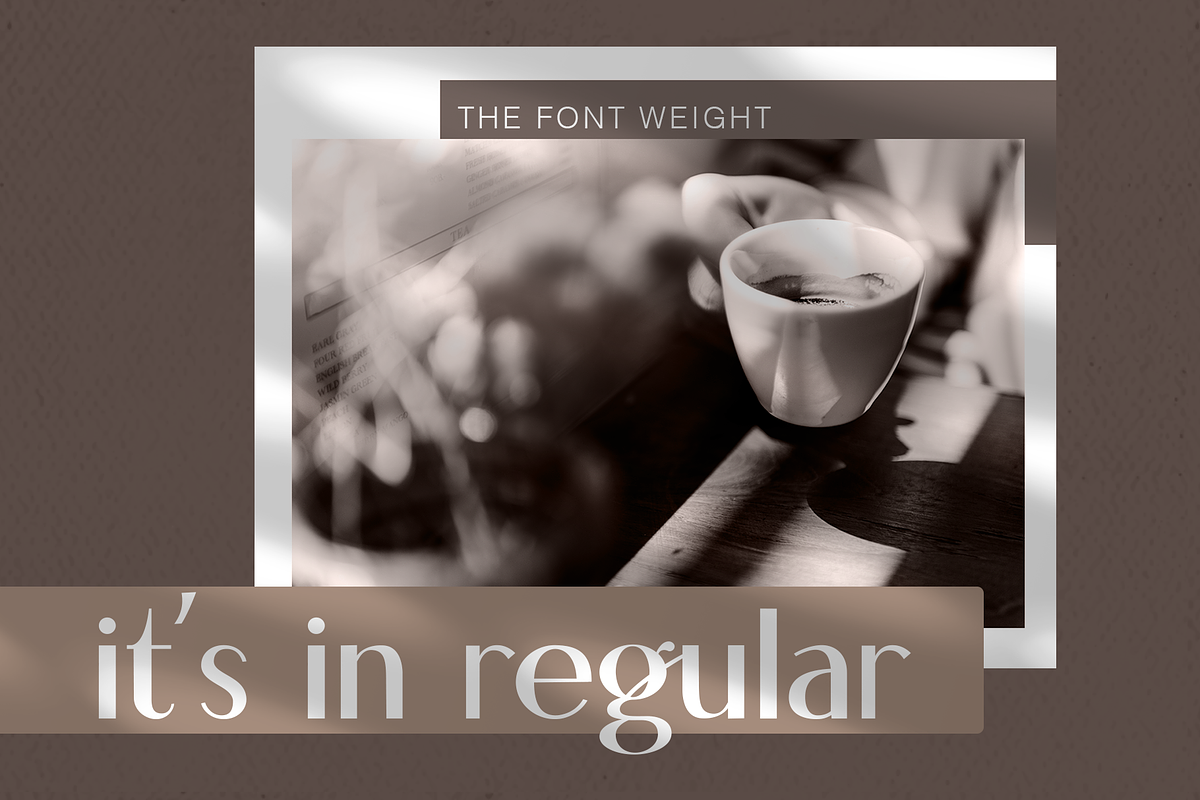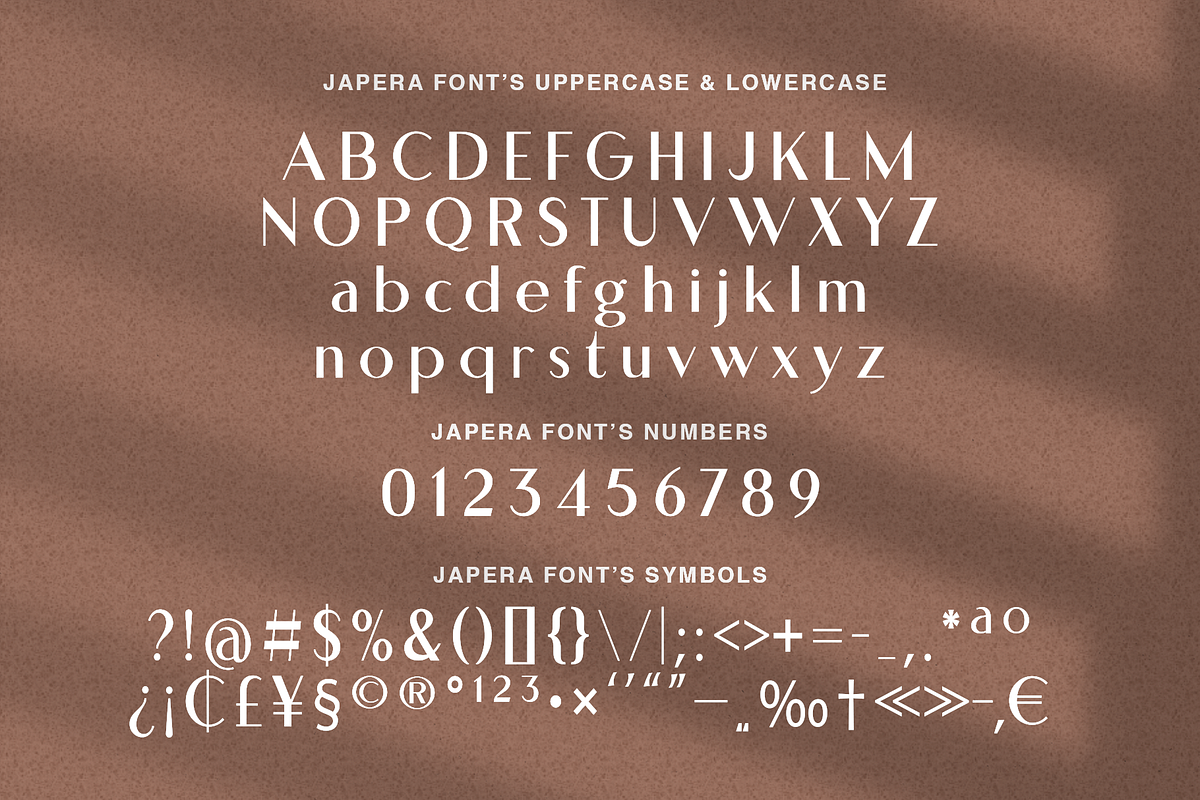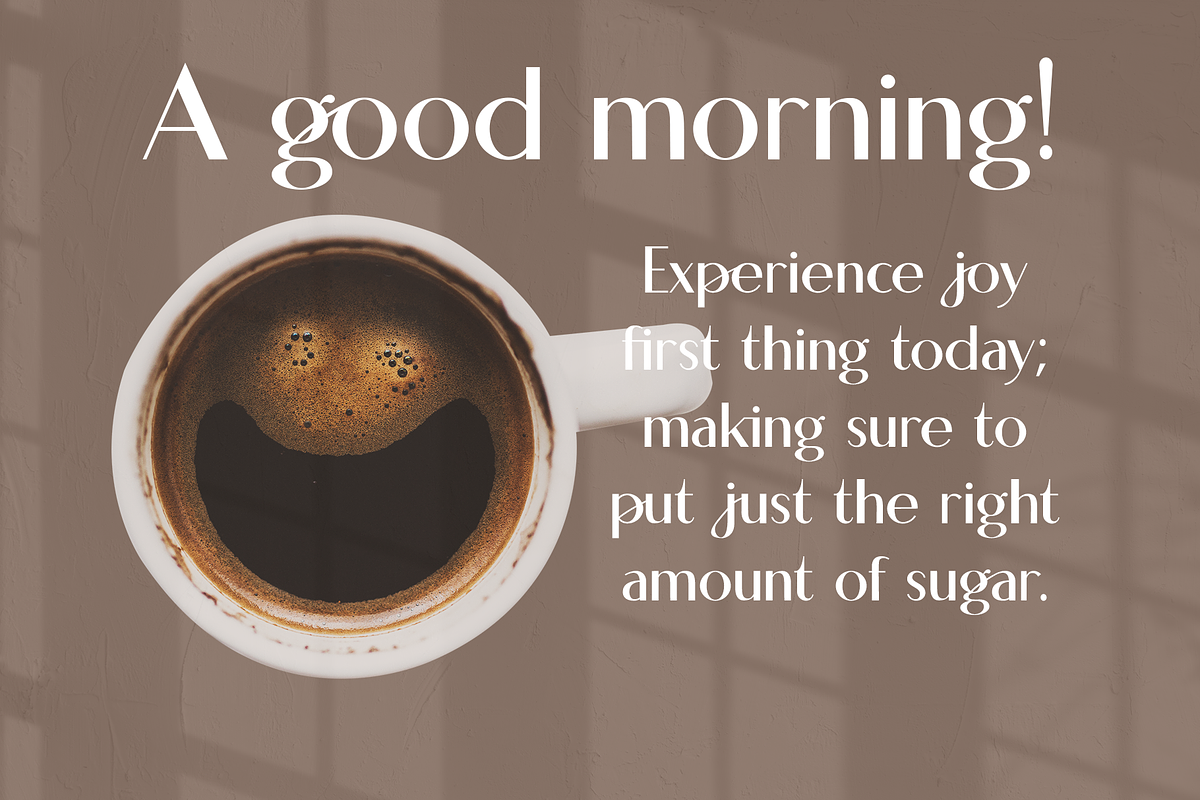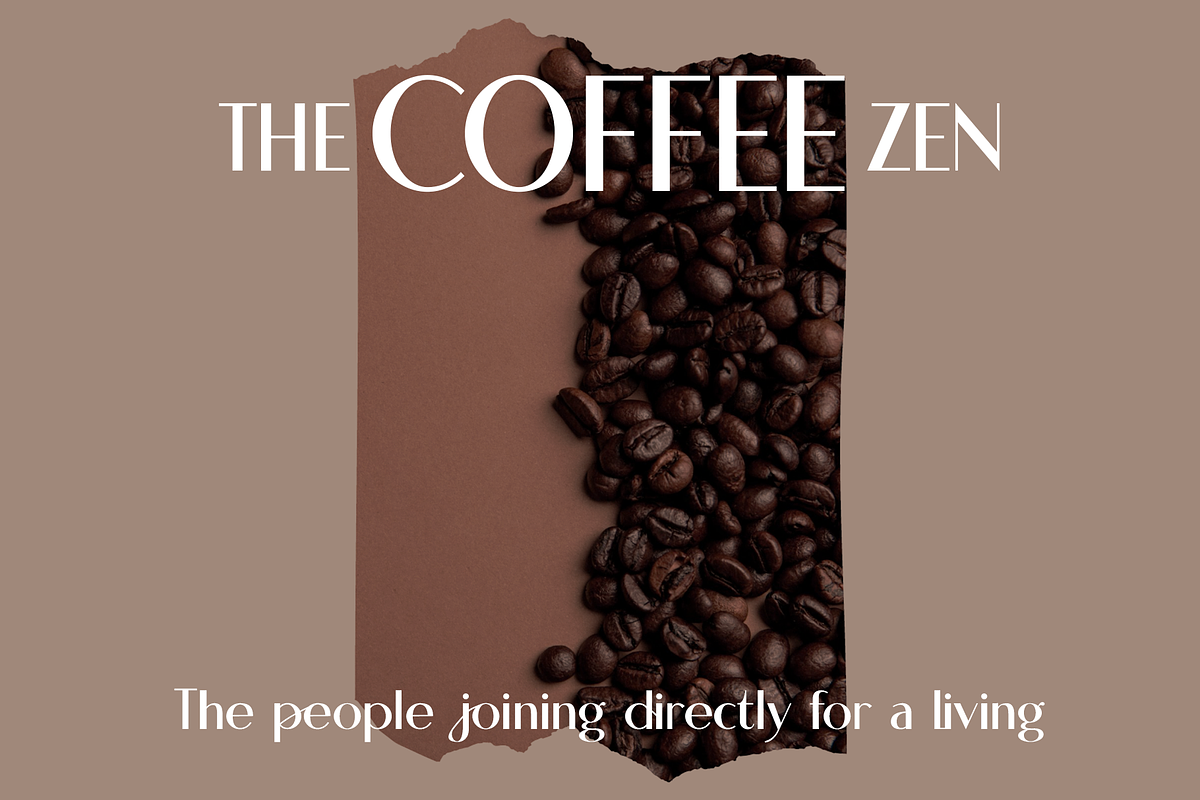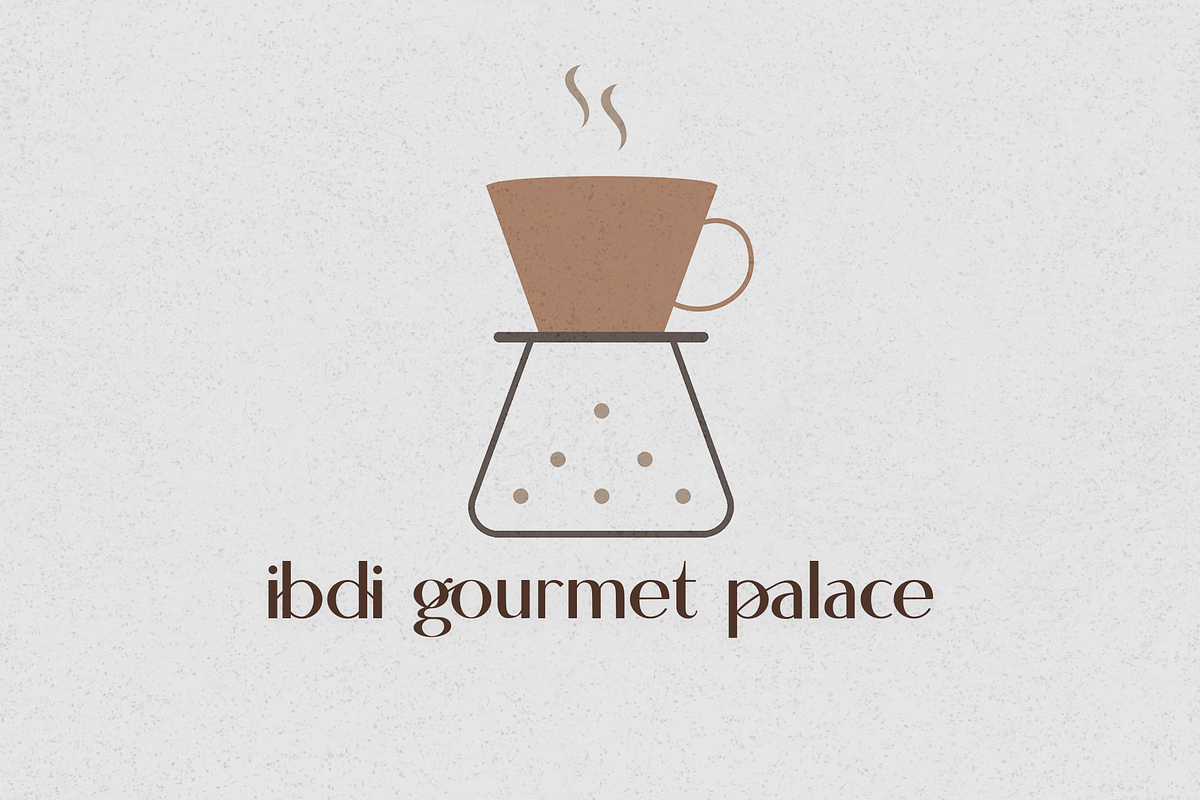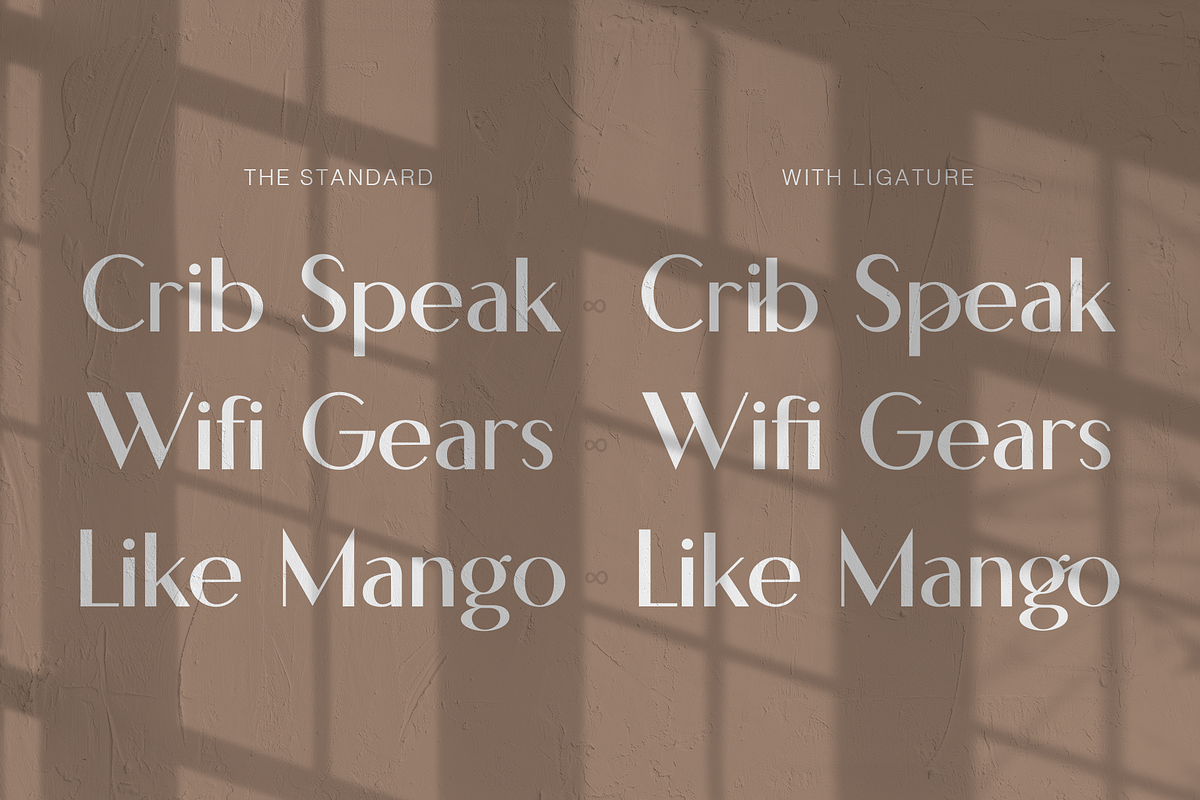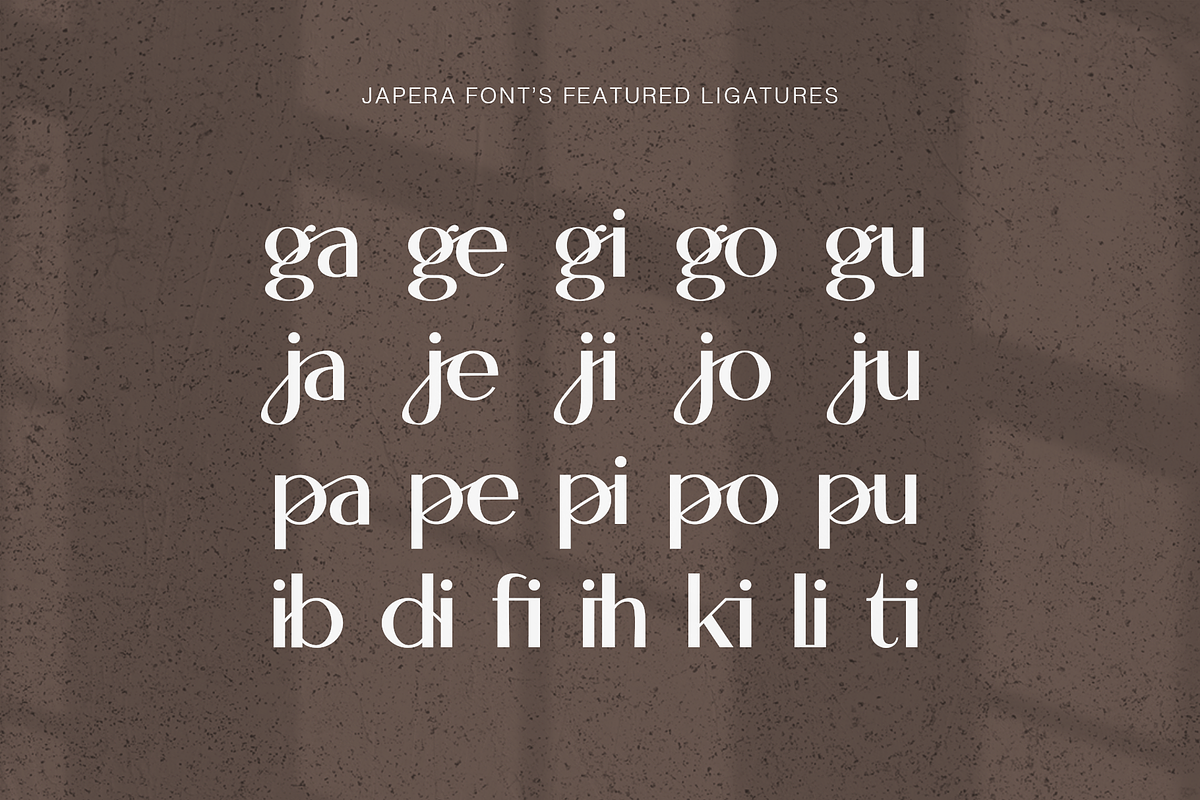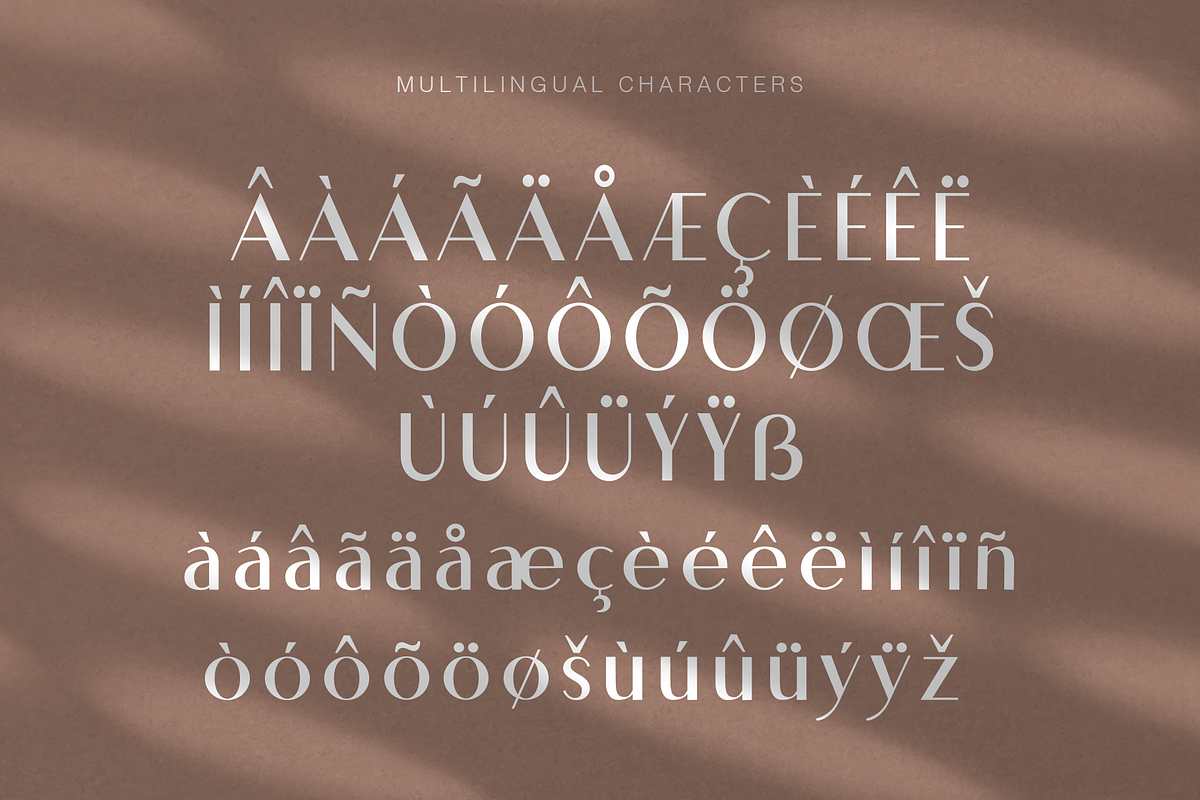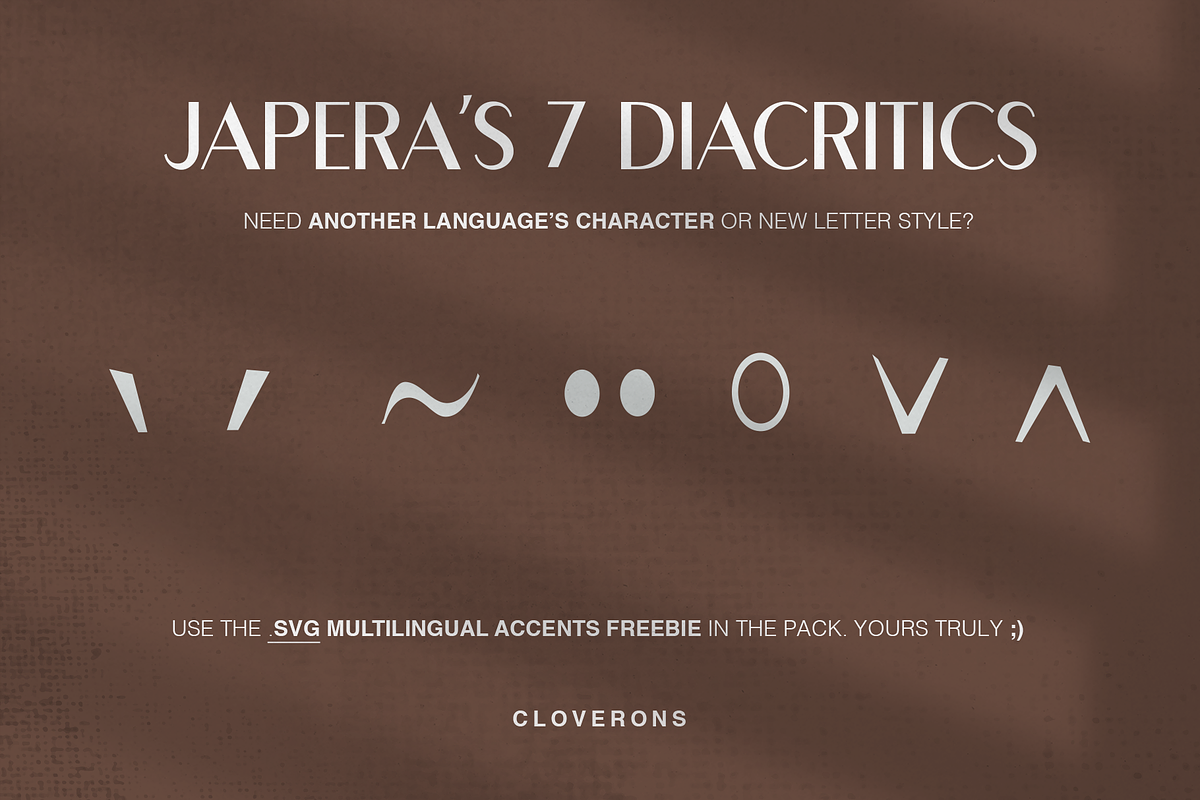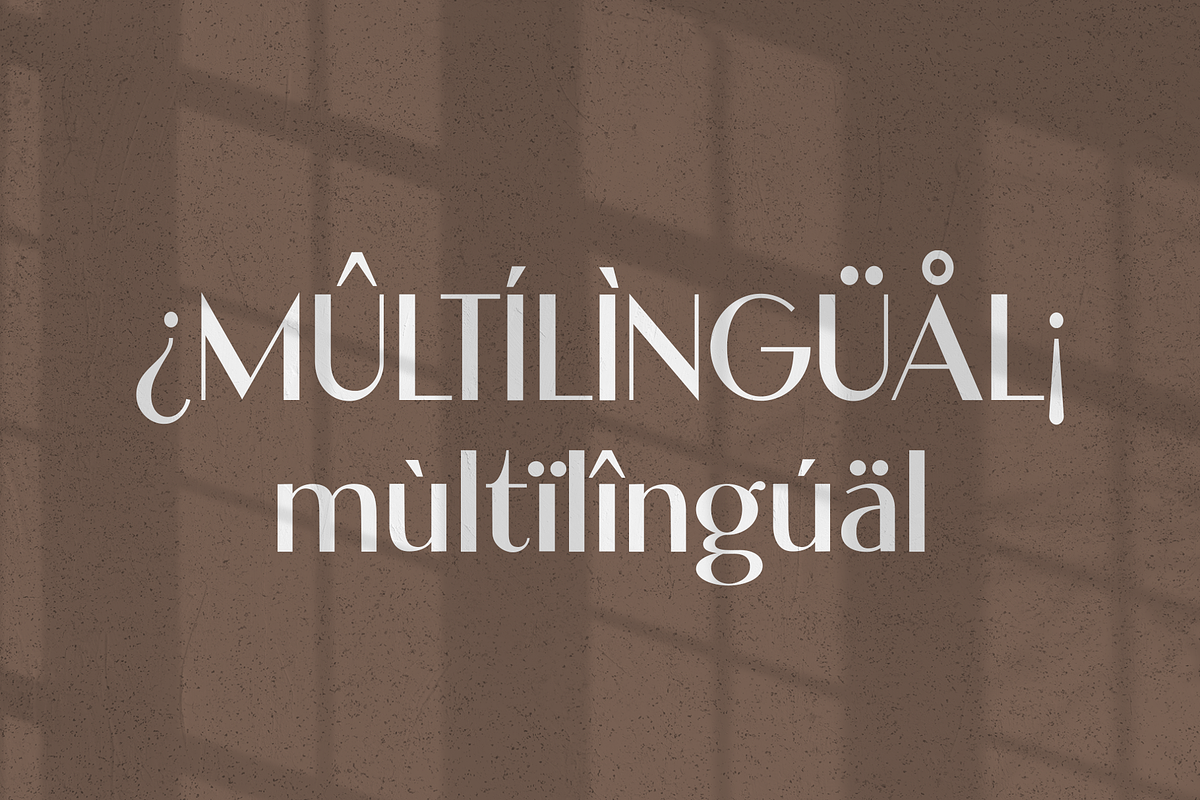
Japera - Modern Scripty Sans Display
Meet Japera, a new sans serif display typeface of the 21st century. It has modern high contrast accents and comes with chosen script styled descenders paired with vowels as its beautiful ligatures. It's a very versatile font that works as standalone or paired with other fonts. It is a great design choice for branding, logo, labels, packaging, magazine headers & so much more.
Why Labeled Sans Display?
They are not optimal for reading, in 14 points and below which is the standard for a sans serif typeface; but are inspired with the sans serif modern, clean look with added feminine personality brought by their rich ligature nature. They are most optimal for Headers, logos, and big typographic elements to convey a meaning to your audience and grab their attention in a minimalistic way.
- Lowercase & Uppercase
- Unique, Script Looking Ligatures
- Multilingual Characters
- Language Support: Western Europe